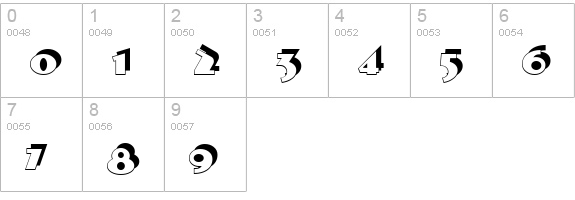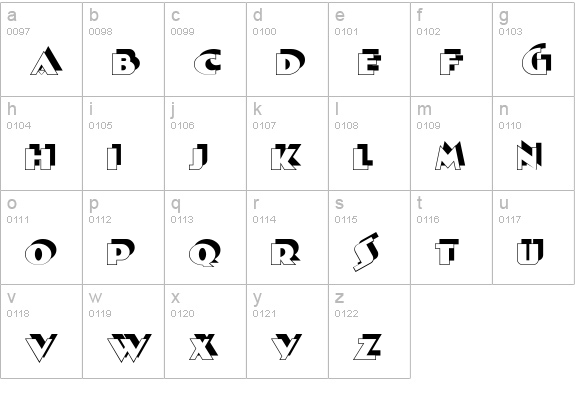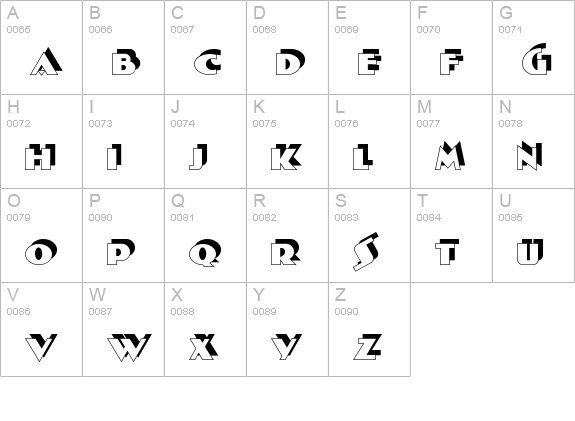
Duck Soup NF Font Details
Duck Soup NF font is a whimsical and playful typeface that will add a touch of fun to any creative project. Its quirky design and rounded edges give it a lighthearted feel, making it perfect for children's books, greeting cards, and more. This font is free to download at FontsMarket.com, so you can easily add a pop of personality to your designs without breaking the bank. With its charming and unique style, Duck Soup NF font is sure to make your text stand out and bring a smile to your audience's face.